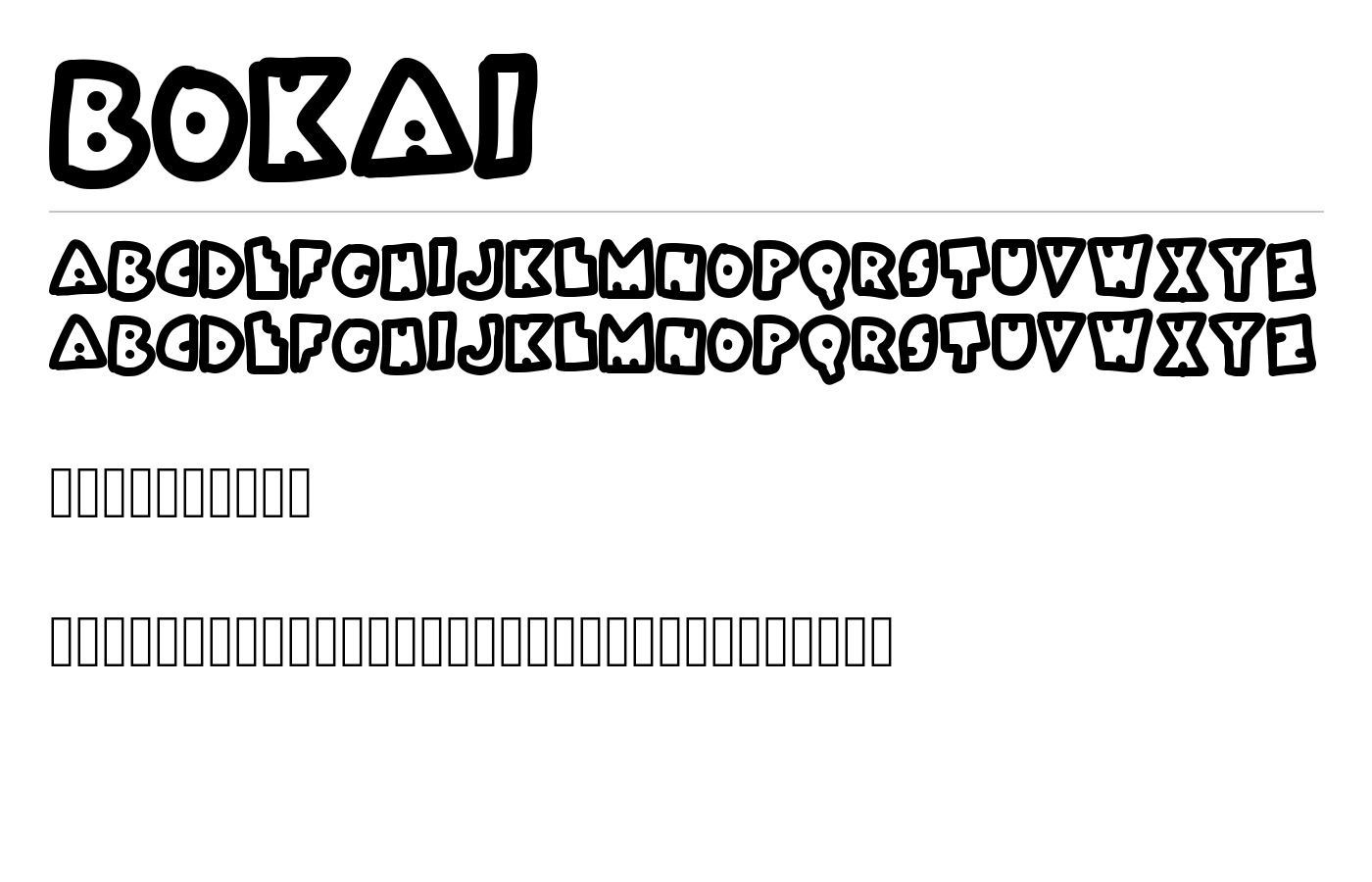
Bokai is a bold, playful sans serif font with thick, irregular strokes and whimsical, hand-drawn letterforms that give it a fun and casual personality. Its wide, chunky characters and quirky shapes make it perfect for eye-catching headlines, children’s designs, creative logos, and informal branding where a lively and approachable tone is desired. This font adds a unique, friendly charm ideal for projects needing a standout, energetic style.
Bokai Font
About Bokai Font